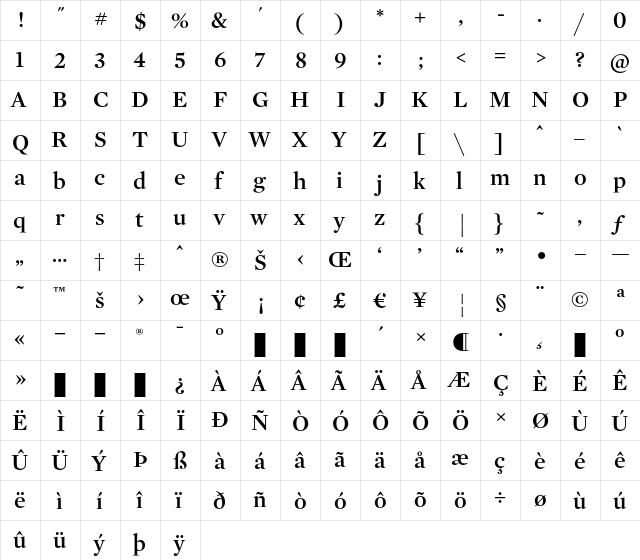
Mercury Display Semibold Font Preview
Mercury Display Semibold
Design Context for Mercury Display Typeface
Mercury Display brings ornamental detail and strong personality to headlines and identities, where visual impact matters more than quiet functionality. The heavy weight commands attention and anchors typographic hierarchies.
Font Pairing: Pair with a clean neutral sans-serif for body copy to let Mercury Display's character lead without overwhelming the composition.
Pro Tip: Treat Mercury Display as the centrepiece of your typographic hierarchy. One strong heading set in a decorative face can carry an entire layout.